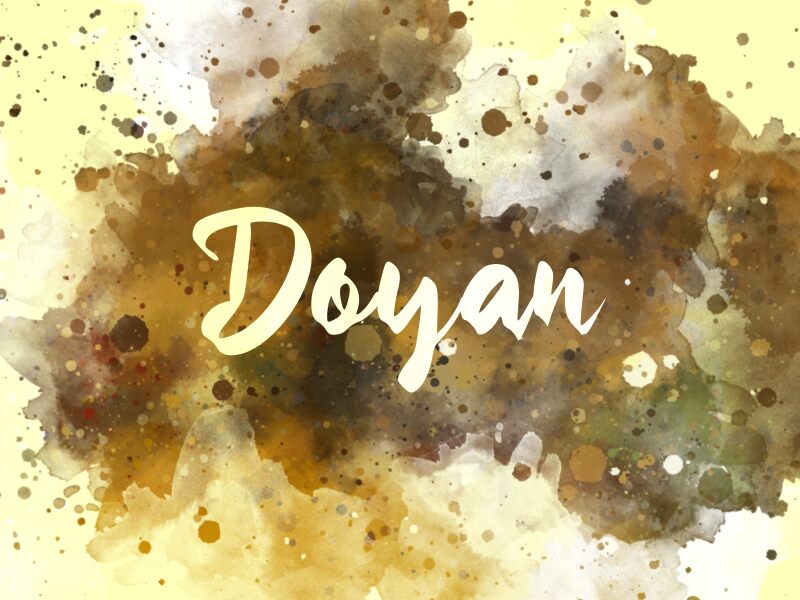
Doyan
Introducing Doyan, a handwritten font created by Wahyu Eka Prasetya. Perfect for adding an organic, personal touch to your projects - from greeting cards to book covers, posters and more!